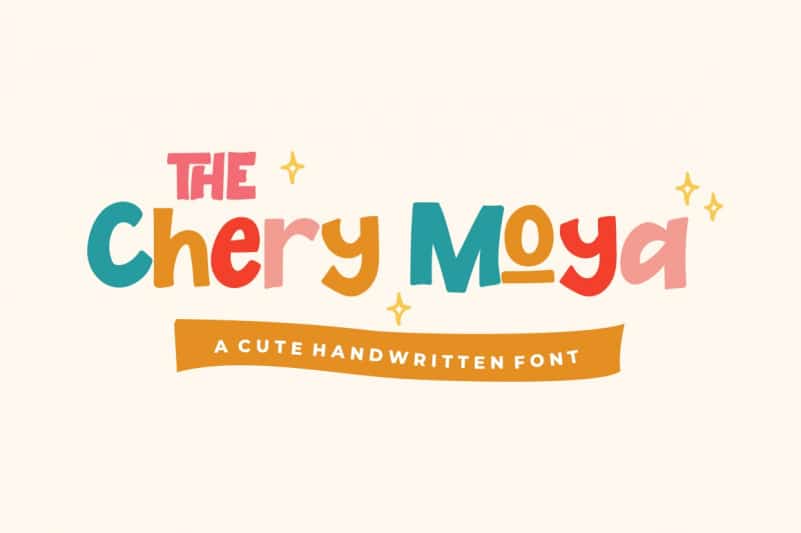
The Chery Moya Display Font
The Chery Moya Display Font is a playful and fun hand-drawn bold typeface. The Chery Moya will help you to create special and touching typographical designs for fun or childish projects. It’s perfect for logos, quotes, invitations, blog posts, business cards, presentations and more! The Chery Moya is here to elevate your work to the highest level.